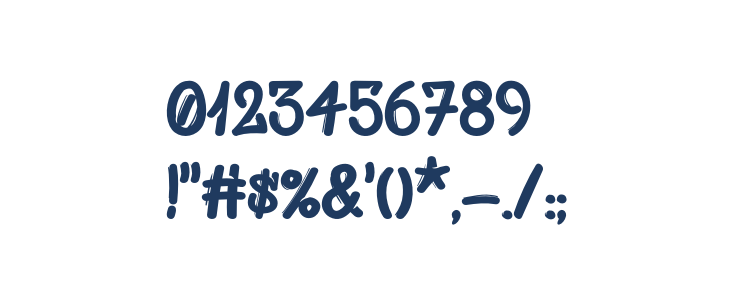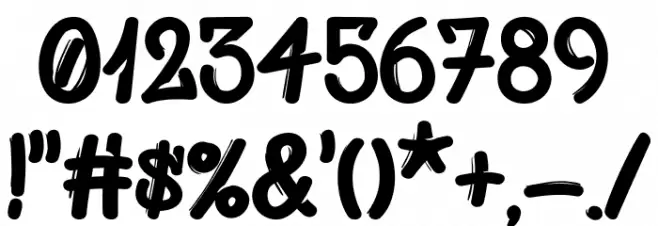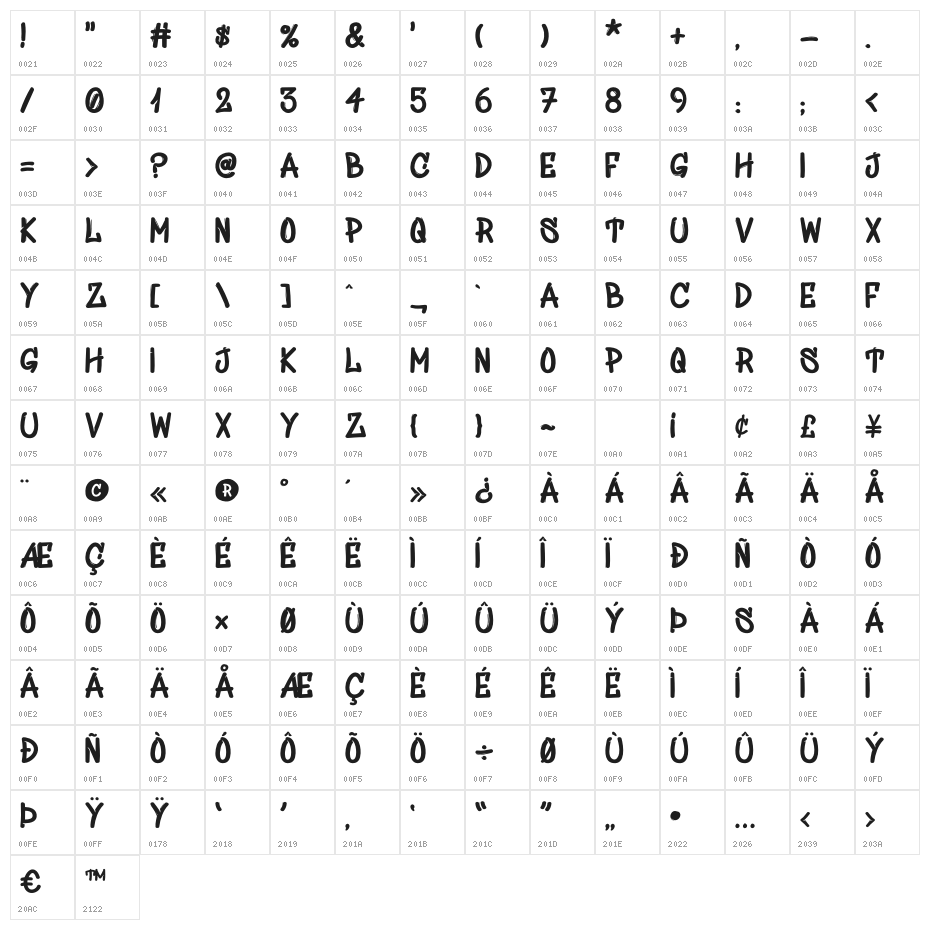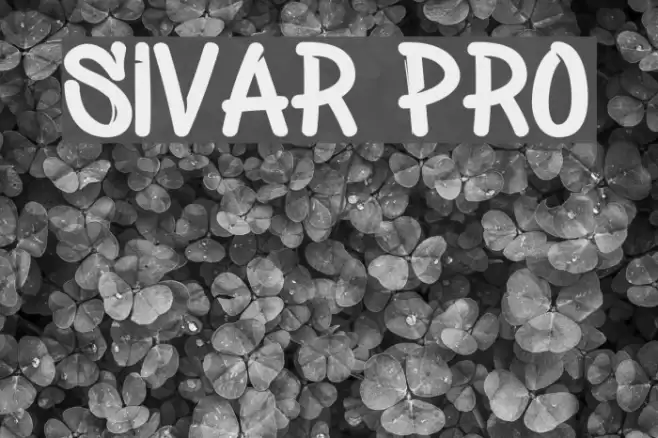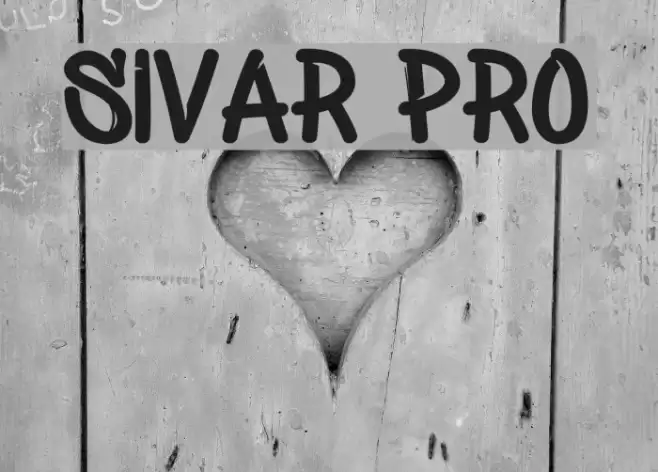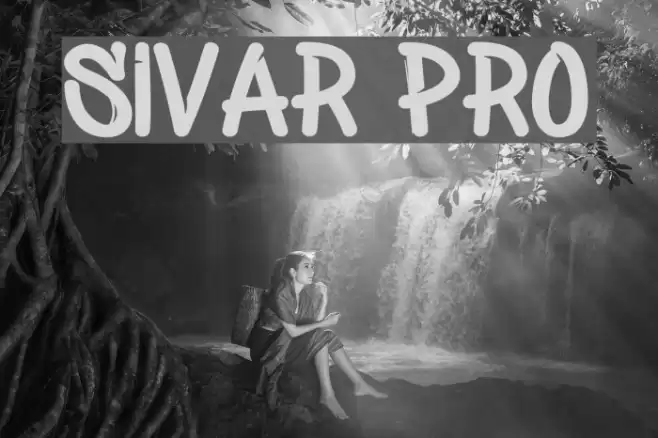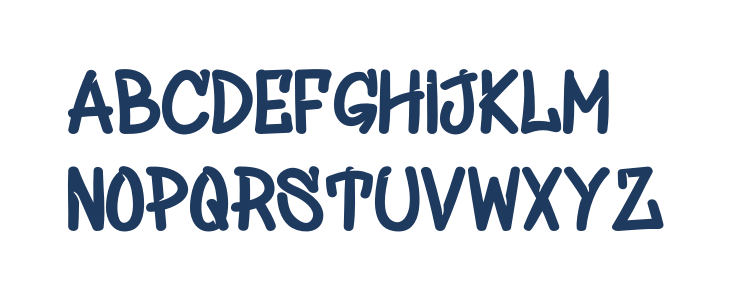
Sivar Pro Font
Sivar Pro Description
This font features a bold, playful style with a hand-drawn appearance. The characters are thick and rounded, giving a friendly and approachable feel. The uppercase and lowercase letters maintain a consistent style, with slight variations that add to the casual, informal look. The numbers and special characters follow the same design principles, ensuring uniformity across all glyphs. The font's strokes are consistent in width, with minimal contrast, emphasizing its boldness and making it highly legible. This style is perfect for projects that require a fun and energetic vibe.
| Proposed Projects | Ideal for children's books, comic strips, playful branding, and casual invitations. |